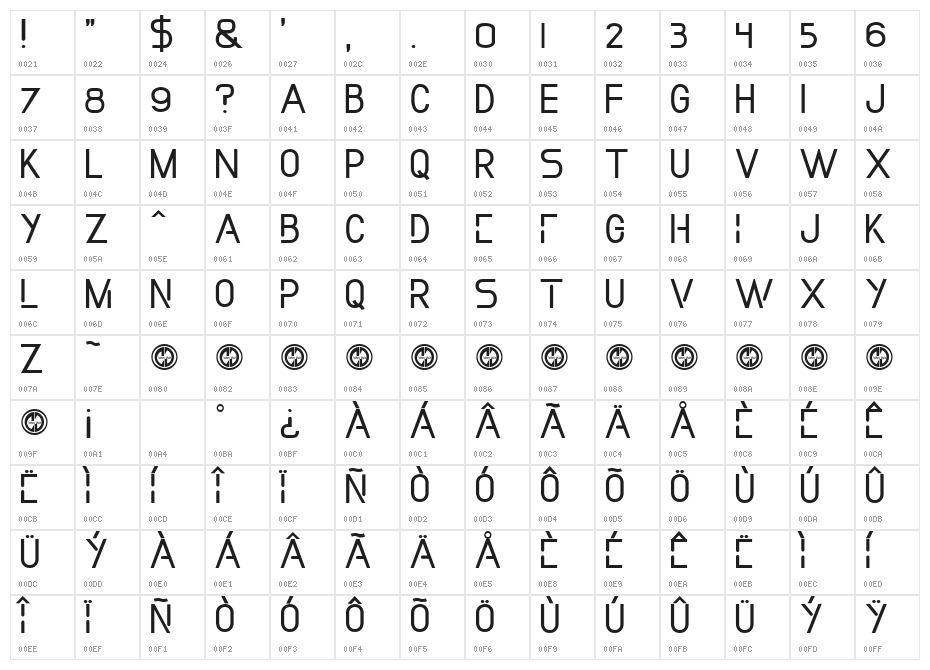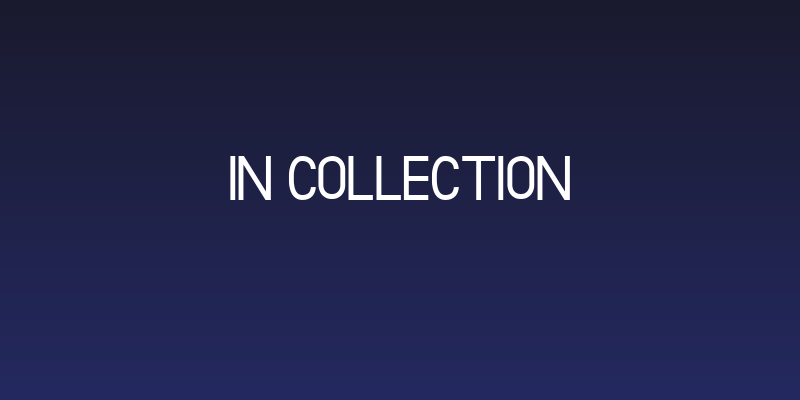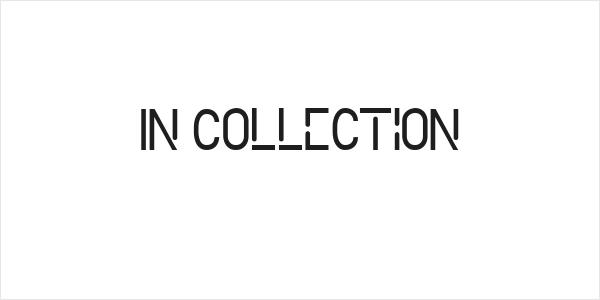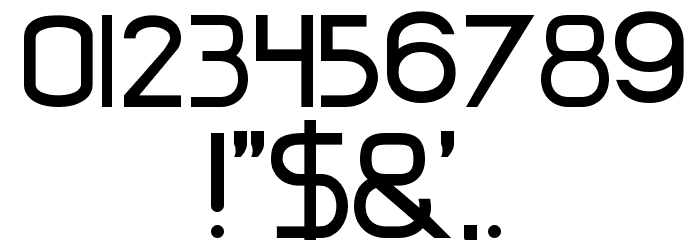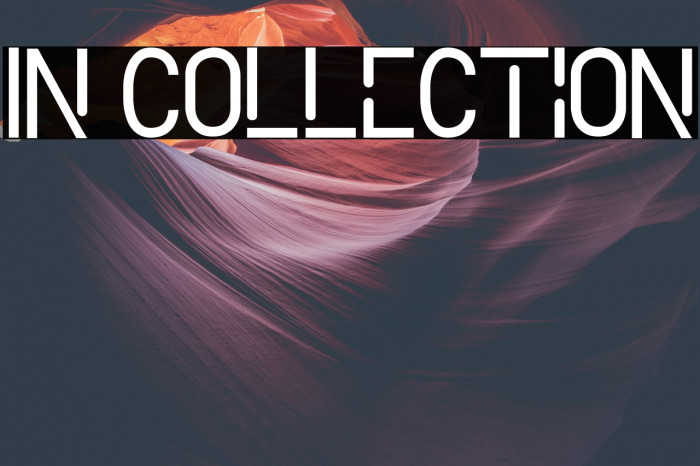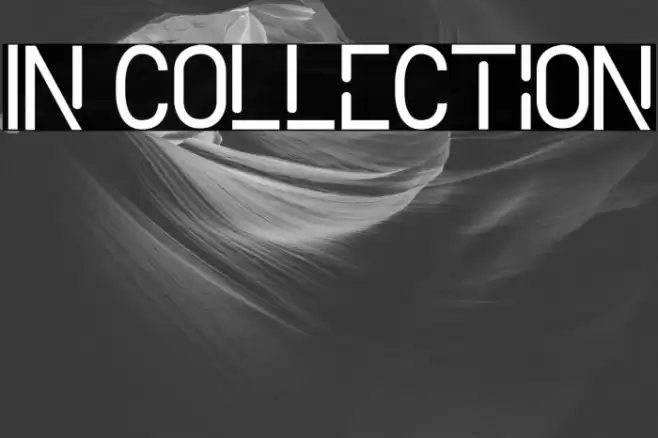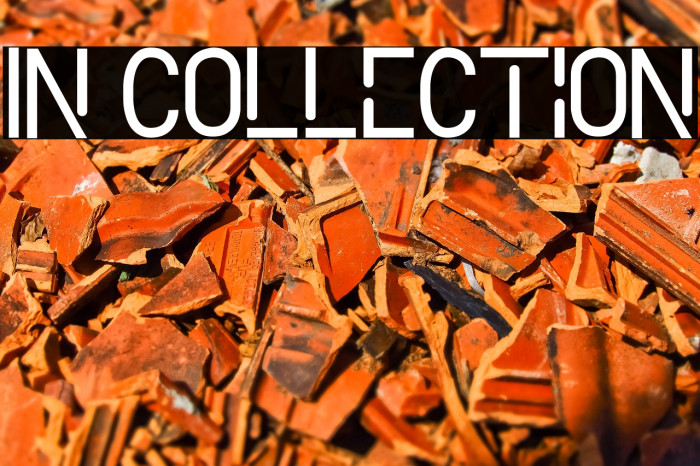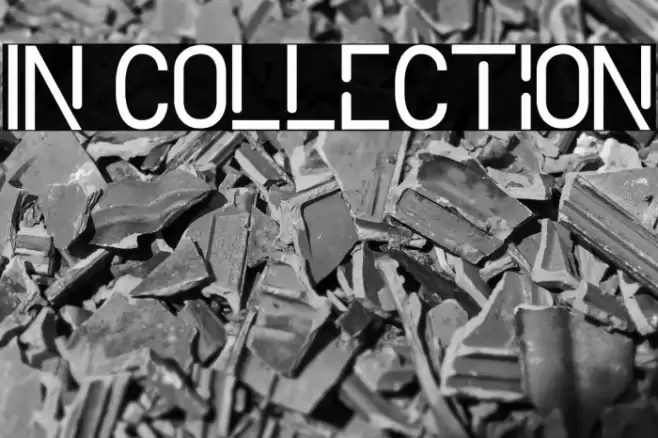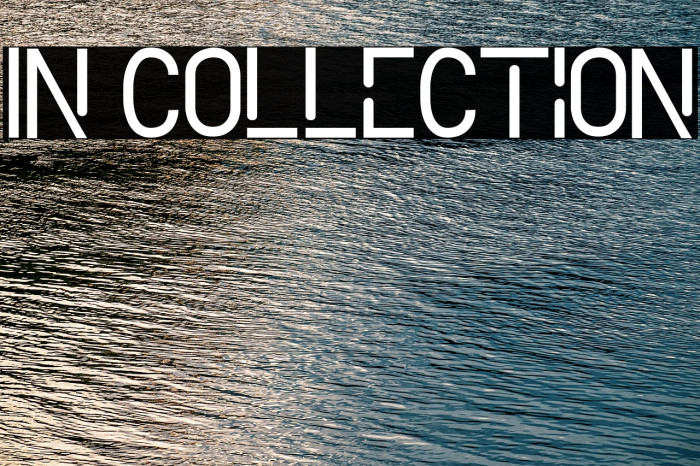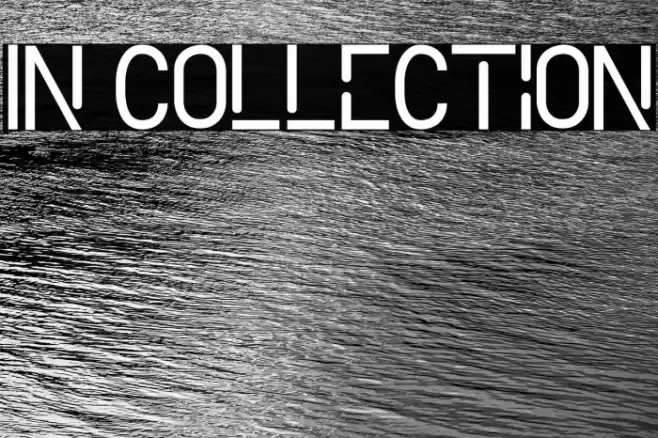
In Collection Font
In Collection Description
This font features a modern and geometric design with clean, straight lines and uniform thickness. The uppercase letters are bold and structured, giving a sense of stability and strength. The lowercase letters maintain the same geometric style, ensuring consistency throughout. Numbers are equally bold and clear, making them highly legible. Special characters are designed to match the overall aesthetic, with a focus on simplicity and clarity. The font's uniformity and precision make it suitable for a variety of design applications.
| Use Case | Headlines, Logos, Signage |
| Proposed Projects | Ideal for branding, signage, posters, and digital interfaces where clarity and modernity are key. |